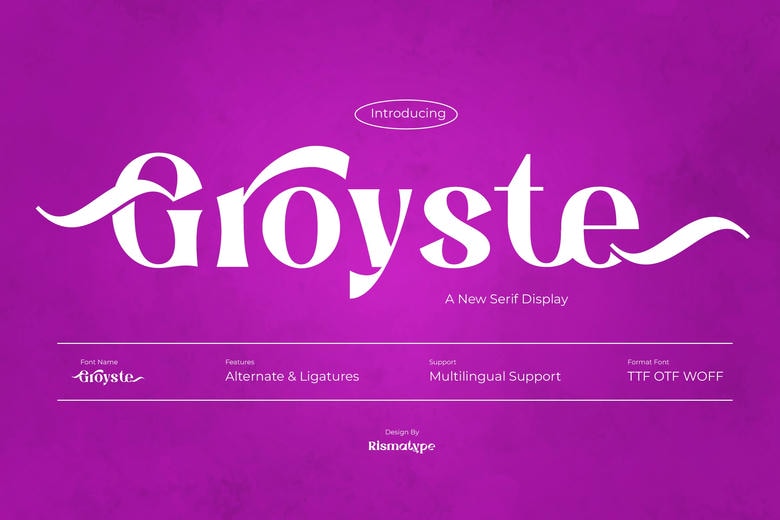
Groyste Font
Groyste is an elegant bold serif font that blends timeless beauty with modern sophistication. Its delicate curves and refined details make it perfect for luxury branding, invitations, and editorial design. With a graceful style and excellent readability, Groyste adds charm and elegance to any project.
Groyste Serif Font